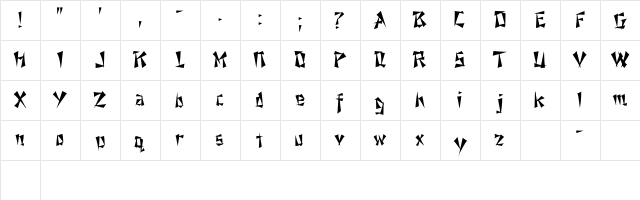
Nixon in China Regular
Design Context for Nixon in China Typeface
Nixon in China is a composed and adaptable typeface that performs quietly and consistently across a wide range of design contexts.